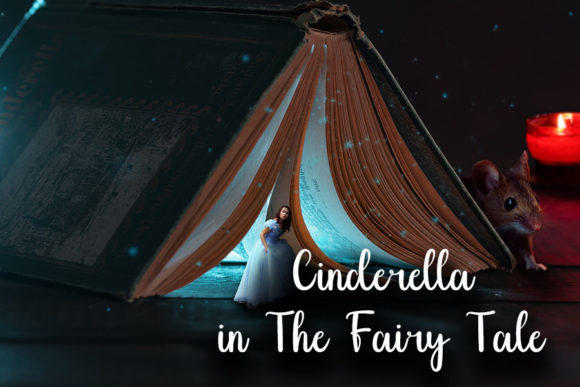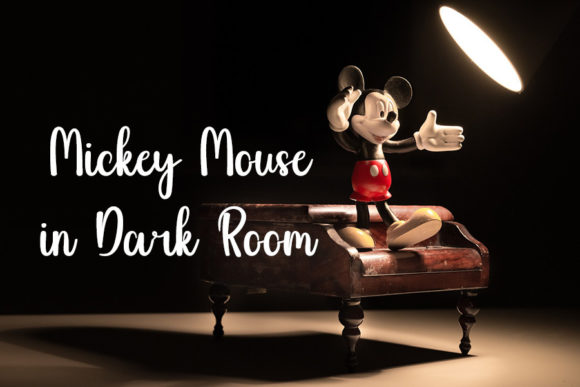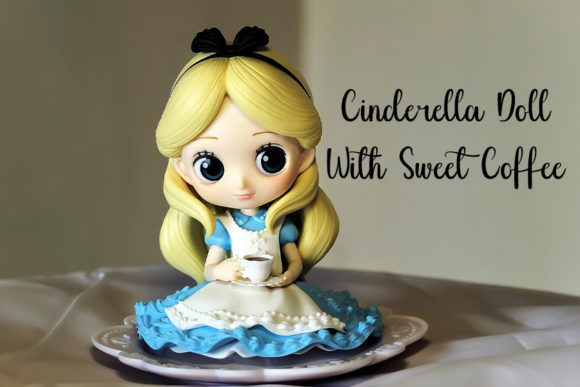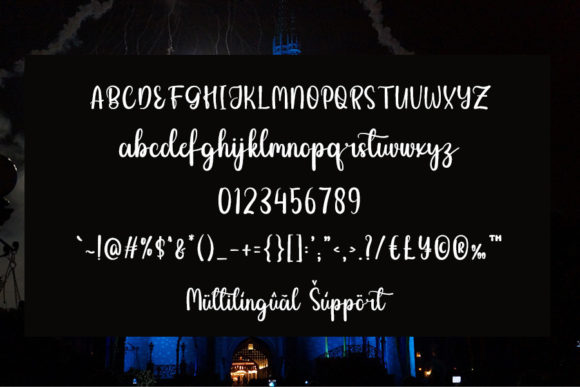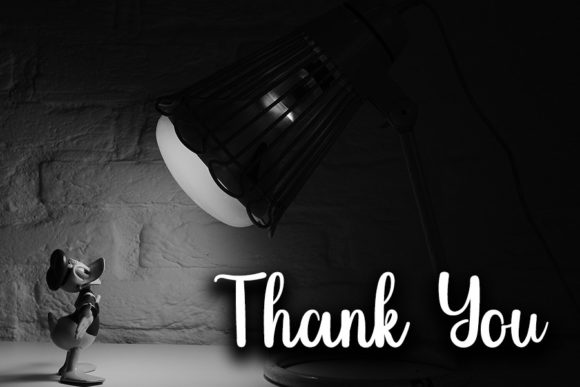
Introduction to Dunky Dreams Font
Do you remember that moment when you’re working on a creative project, and you’re struggling to find the perfect font to match your design’s unique atmosphere? The perfect font can elevate your project from good to great, but it’s not always easy to find. That’s why we’re excited to introduce you to the Dunky Dreams Font, a stylish handwritten font that’s about to become your new design BFF.
With its contemporary atmosphere and impeccable form, the Dunky Dreams Font is inspired by the timeless classic calligraphy, but with a modern twist. Not too thin and not too thick, this font is perfectly balanced and varied, making it the perfect addition to any design project. Whether you’re working on a branding project, a website, or a social media graphic, the Dunky Dreams Font is sure to bring a touch of elegance and sophistication to your design.
Key Features of Dunky Dreams Font
- High-quality design resource suitable for creative projects, offering a unique and eye-catching aesthetic.
- Features a playful and whimsical style, perfect for adding a touch of personality to any design project.
Honest Review: Dunky Dreams Font
What works well with the Dunky Dreams Font is its high quality and unique aesthetic. The font’s quirky, hand-drawn style adds a touch of whimsy to any design, making it perfect for creative projects that require a bit of personality. The font’s versatility is another major plus, as it can be used for a wide range of applications, from branding to editorial design.
- ✨ Unique, hand-drawn style
- ✨ High quality and crisp typography
- ✨ Versatile and suitable for various design applications
However, there are a few limitations to consider. The font’s quirky style may not be suitable for all design projects, particularly those that require a more formal or professional tone. Additionally, the font’s limited character set may make it less practical for extensive text-based projects.
Overall, I’m impressed with the Dunky Dreams Font, and I would recommend it to designers looking for a high-quality, creative solution for their design projects.
- ⚠️ Limited character set
- ⚠️ May not be suitable for formal or professional design projects
Tips for Getting the Most Out of Dunky Dreams Font
To get the most out of Dunky Dreams Font, use it in creative projects where a unique, high-quality font is essential. Experiment with different font sizes, styles, and combinations to create visually appealing designs.
Dunky Dreams Font is perfect for designing social media graphics, blog posts, and marketing materials. It’s also great for creating eye-catching titles and headings for presentations and reports.